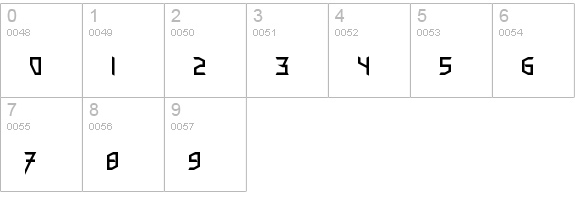
Wickermanor Regular Font Details
Wickermanor Regular is the standard, neutral variant in the Wickermanor typeface family \xE2\x80\x94 well suited to general body text, paragraphs, and standard typographic work.
Wickermanor Regular font is a versatile and timeless typeface that exudes elegance and sophistication. With its classic yet modern design, this font is perfect for a wide range of projects, from branding to editorial design. The clean lines and subtle details of Wickermanor Regular font make it a standout choice for any design application. The best part? Wickermanor Regular font is completely free to download at FontsMarket.com. Now you can add a touch of class to your projects without breaking the bank. Whether you're working on a logo, website, or print materials, Wickermanor Regular font will elevate your design and make a lasting impression. Download it today and see the difference it can make in your work.